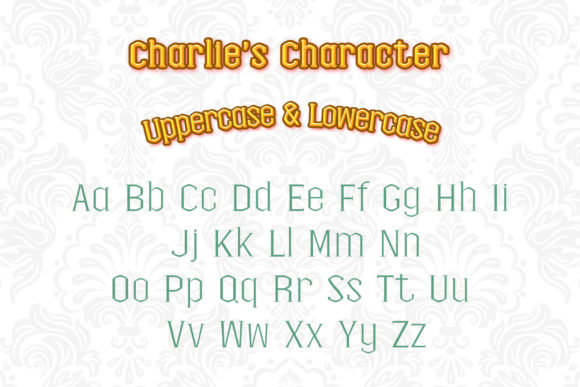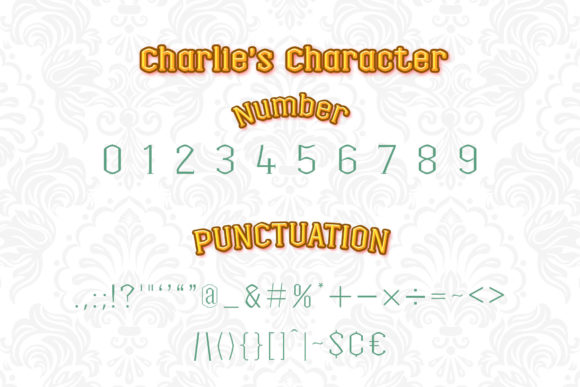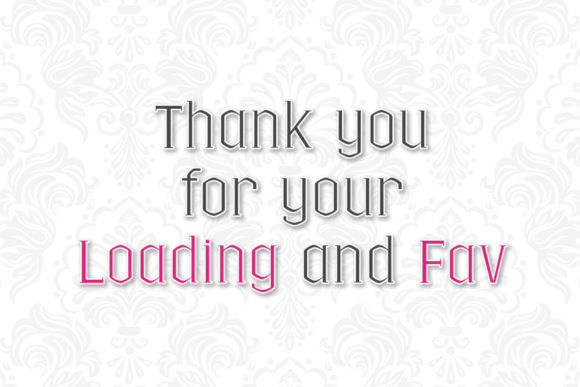
Discover the Elegance of Charlie Font: Elevate Your Designs with Versatility
Are you on the hunt for a font that exudes elegance, sophistication, and versatility? Look no further than Charlie Font, a tall and thin lettered serif font that’s taking the design world by storm. With its unique blend of classic and modern elements, Charlie Font is the perfect addition to any designer’s toolkit.
The Characteristics of Charlie Font
So, what sets Charlie Font apart from other fonts? For starters, its tall and thin lettering gives it a distinctive, elegant look that’s perfect for headlines, titles, and other display text. The serif details add a touch of sophistication, making it ideal for designs that require a level of refinement.
But Charlie Font is more than just a pretty face. Its versatility is one of its most compelling features, allowing designers to use it in a wide range of applications, from:
- Digital displays and signage
- Web design and UI elements
Why Designers Love Charlie Font
Designers and crafters are falling in love with Charlie Font for many reasons. Here are just a few:
- Elegance and sophistication: Charlie Font’s classic serif details and tall, thin lettering make it perfect for designs that require a level of refinement.
- Versatility: Whether you’re designing a logo, poster, or digital display, Charlie Font adapts seamlessly to any style or format.
- Easy to read: Despite its elegant appearance, Charlie Font remains highly legible, even at smaller sizes.
- Unique and distinctive: With its tall and thin lettering, Charlie Font stands out from more traditional fonts, giving your designs a unique edge.
Tips for Using Charlie Font Effectively
To get the most out of Charlie Font, here are a few tips to keep in mind:
- Experiment with sizes: Charlie Font’s versatility means it can be used at a wide range of sizes, from large headlines to smaller body text.
- Play with colors: Charlie Font looks stunning in a variety of colors, from bold and bright to muted and pastel.
- Mix and match: Combine Charlie Font with other fonts to create visually interesting contrasts and hierarchies.
- Pay attention to spacing: As with any font, make sure to adjust the spacing and kerning to ensure optimal readability and aesthetics.
Get Creative with Charlie Font
With its unbeatable combination of elegance, versatility, and readability, Charlie Font is the perfect choice for designers and crafters looking to elevate their designs. Whether you’re working on a logo, poster, or digital display, Charlie Font is sure to impress.
In conclusion, Charlie Font is a game-changer for designers and crafters. Its unique blend of classic and modern elements makes it a must-have font for any design project. So go ahead, fall in love with Charlie Font, and take your designs to the next level!